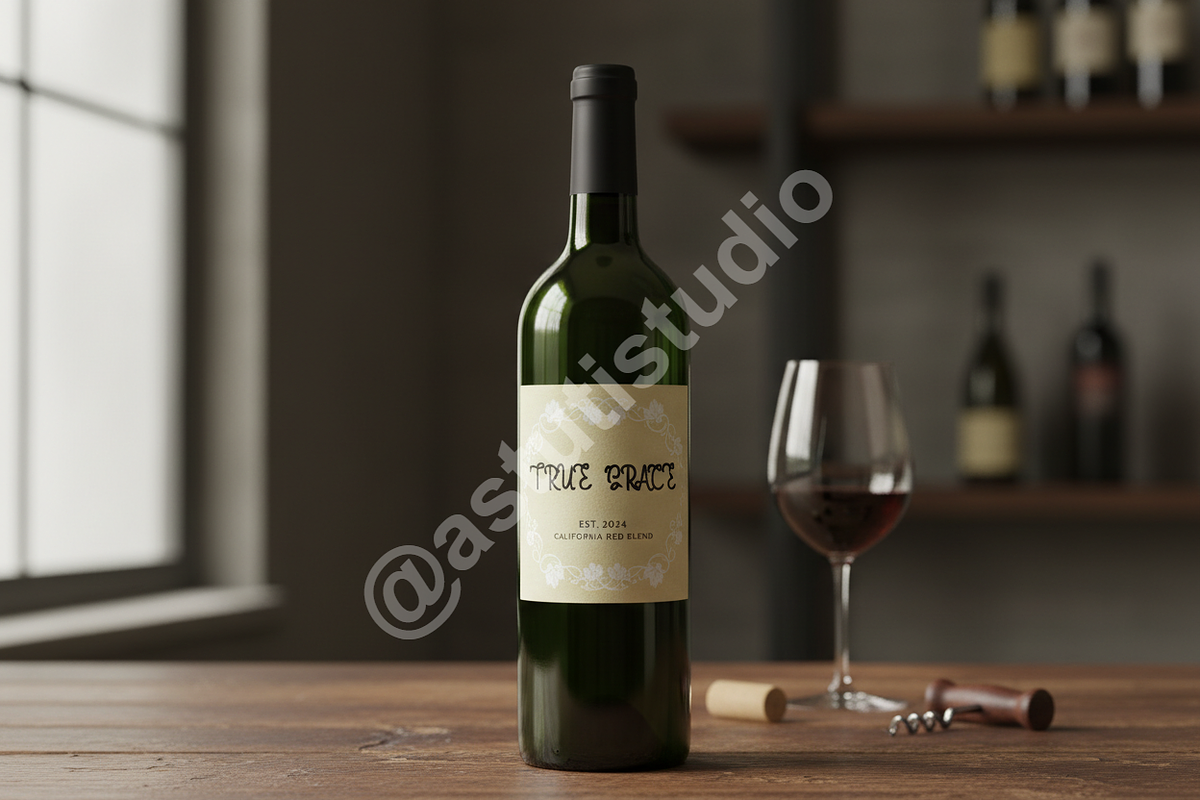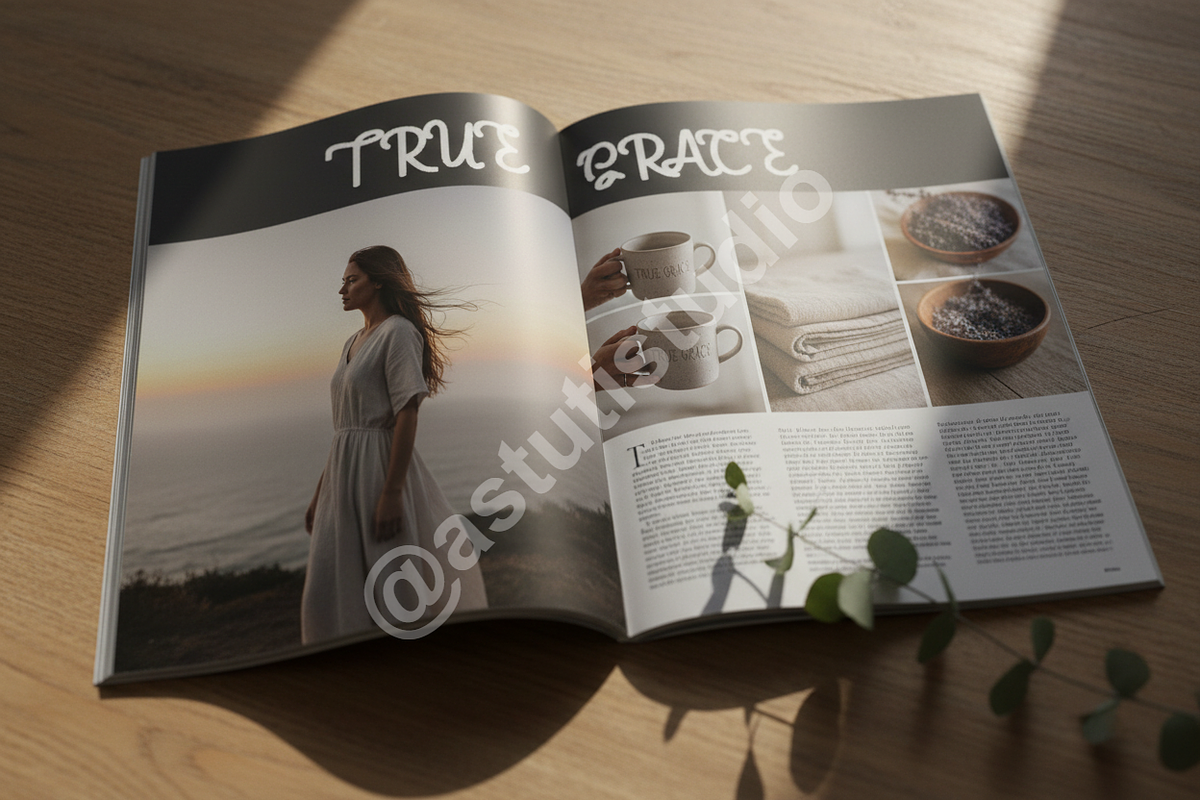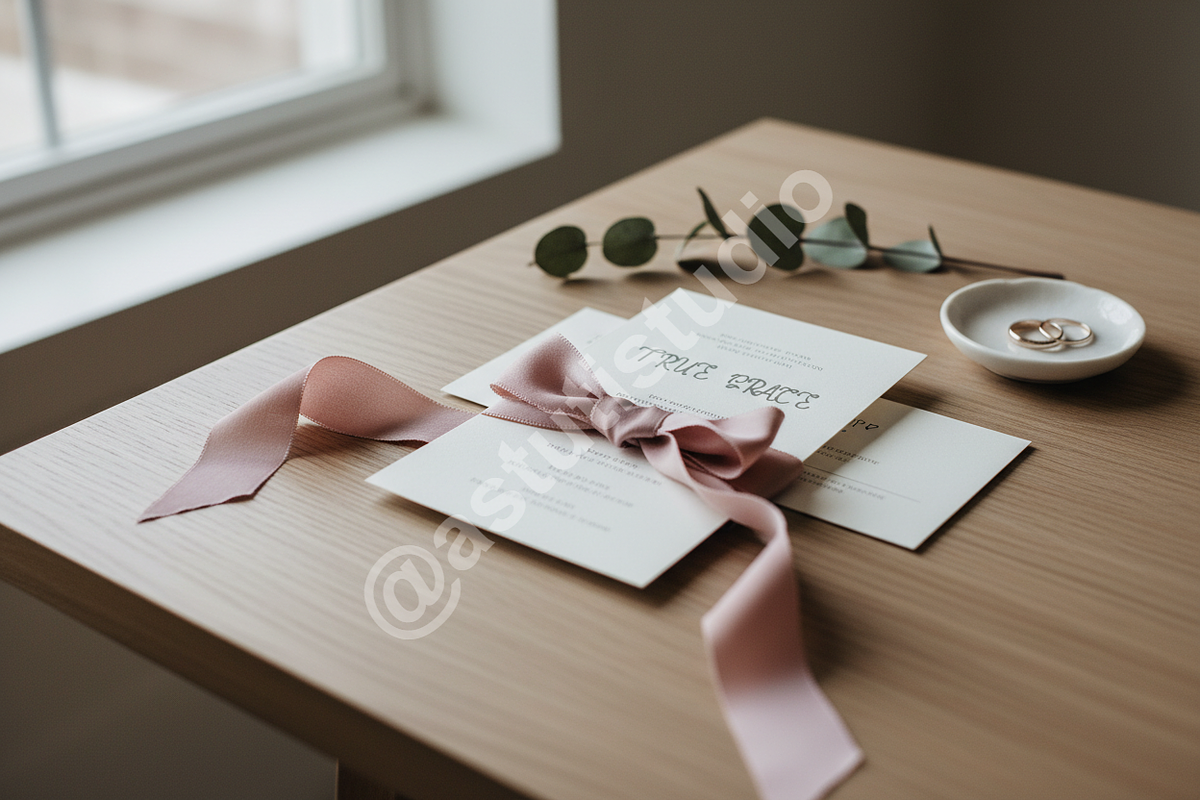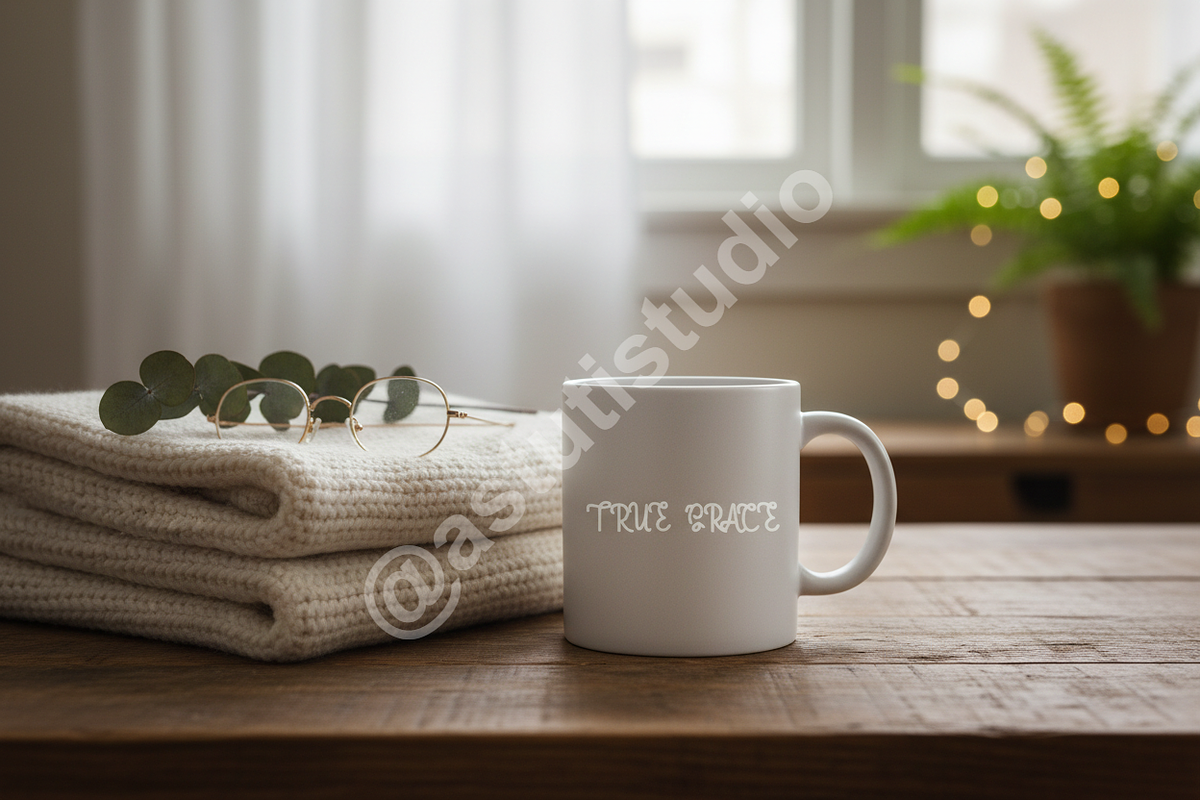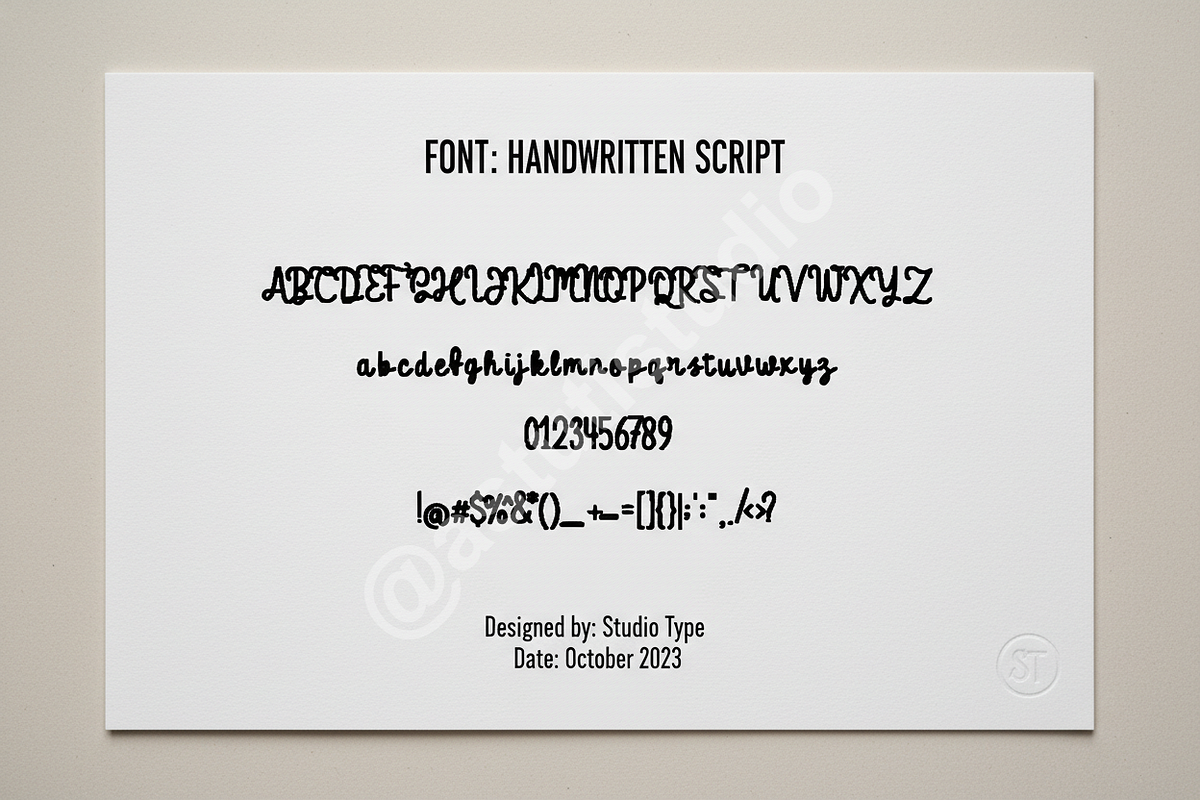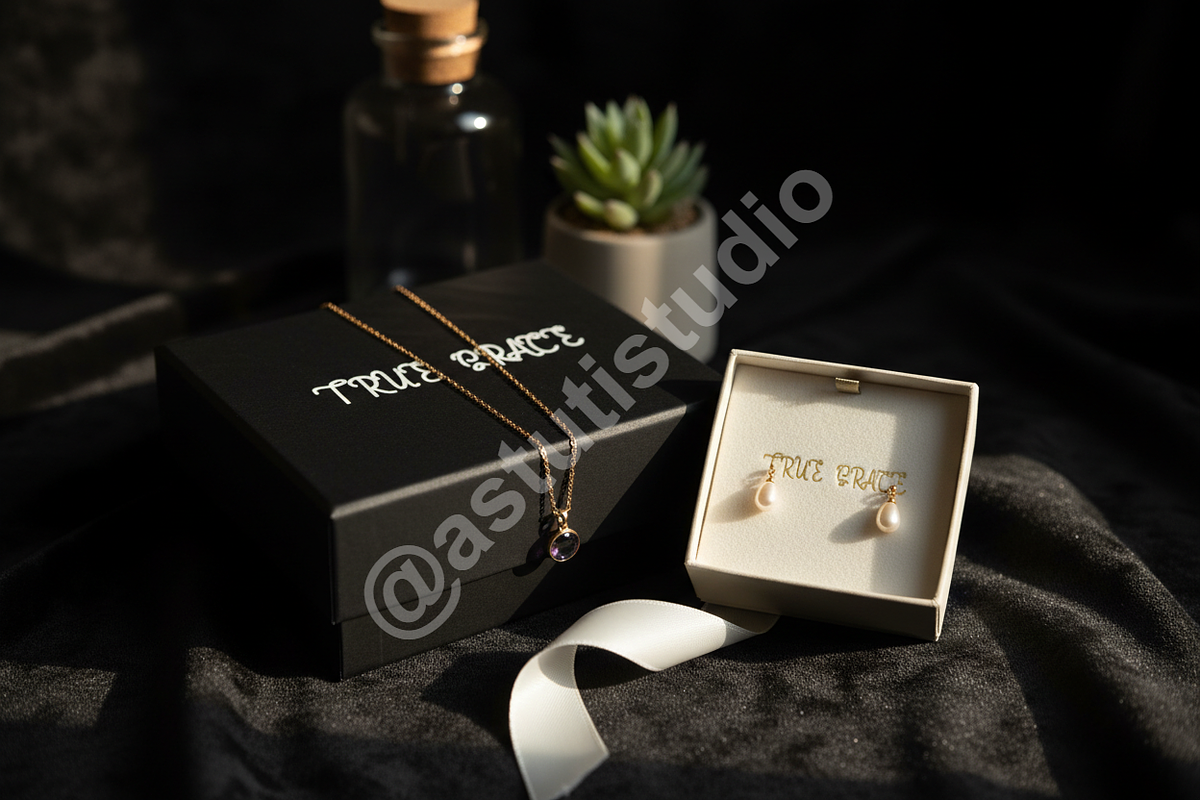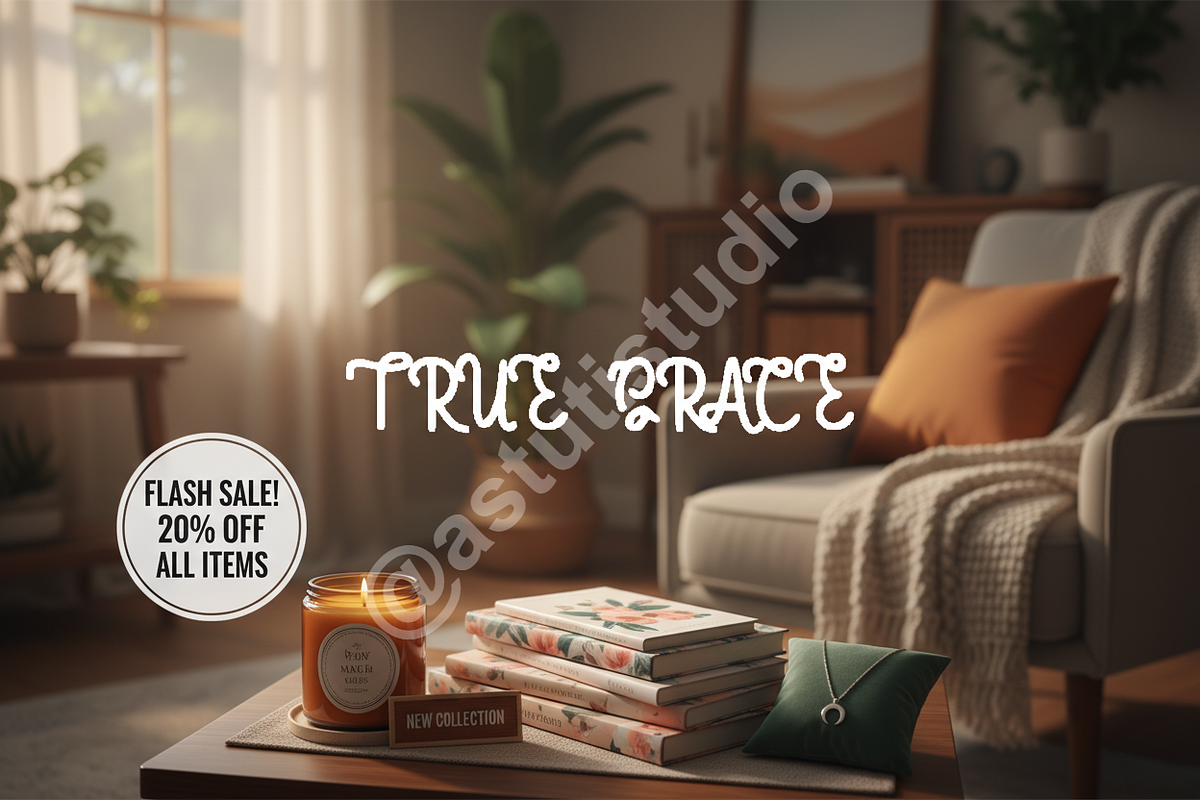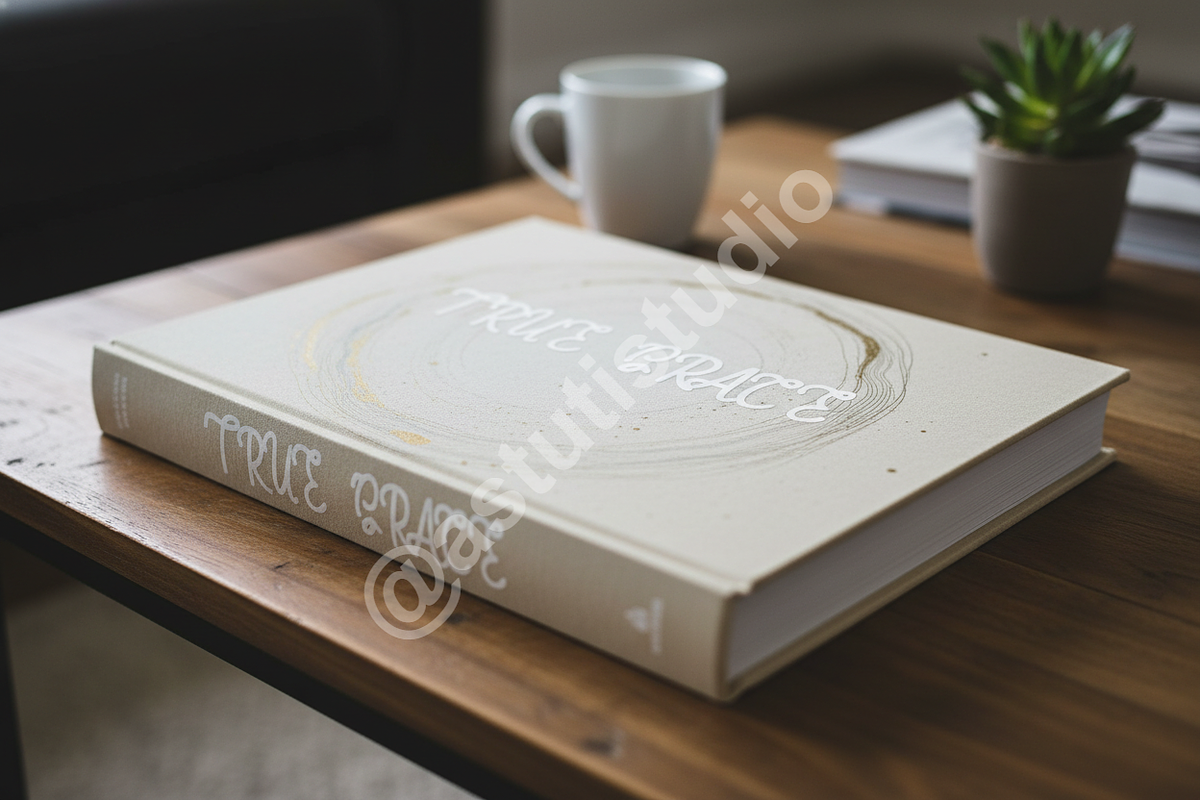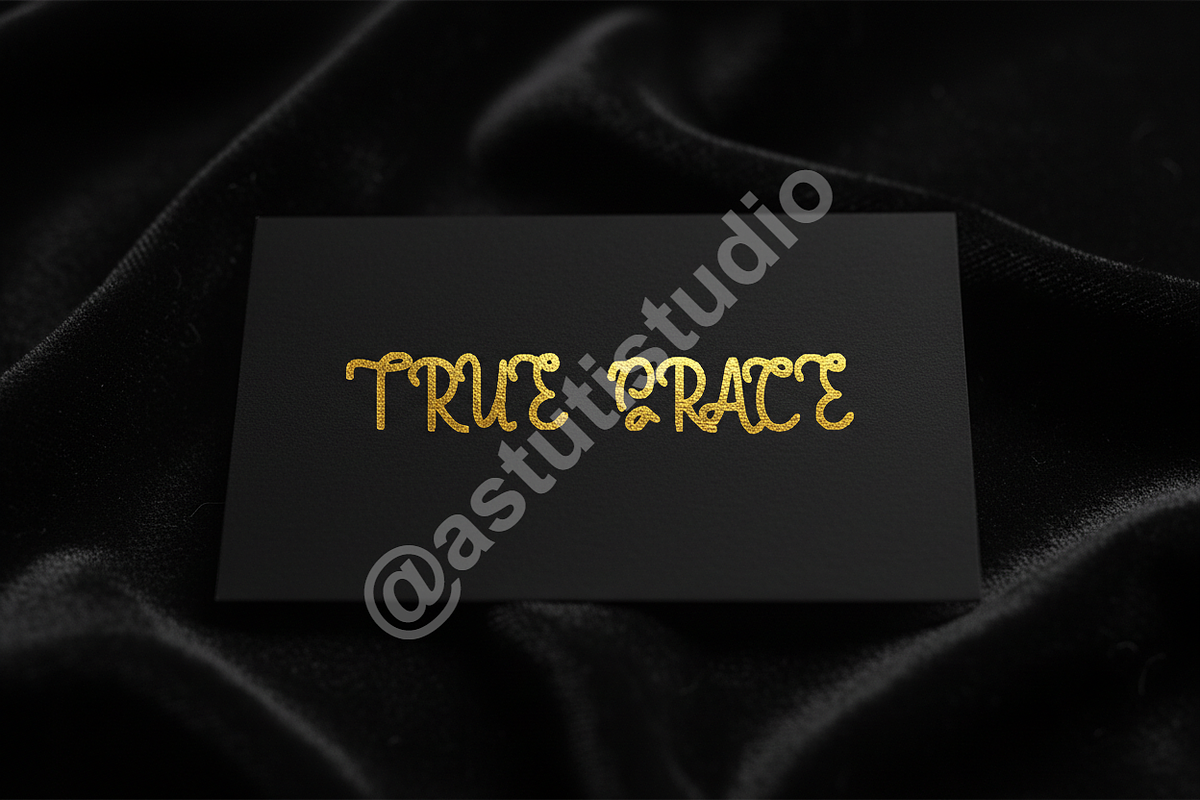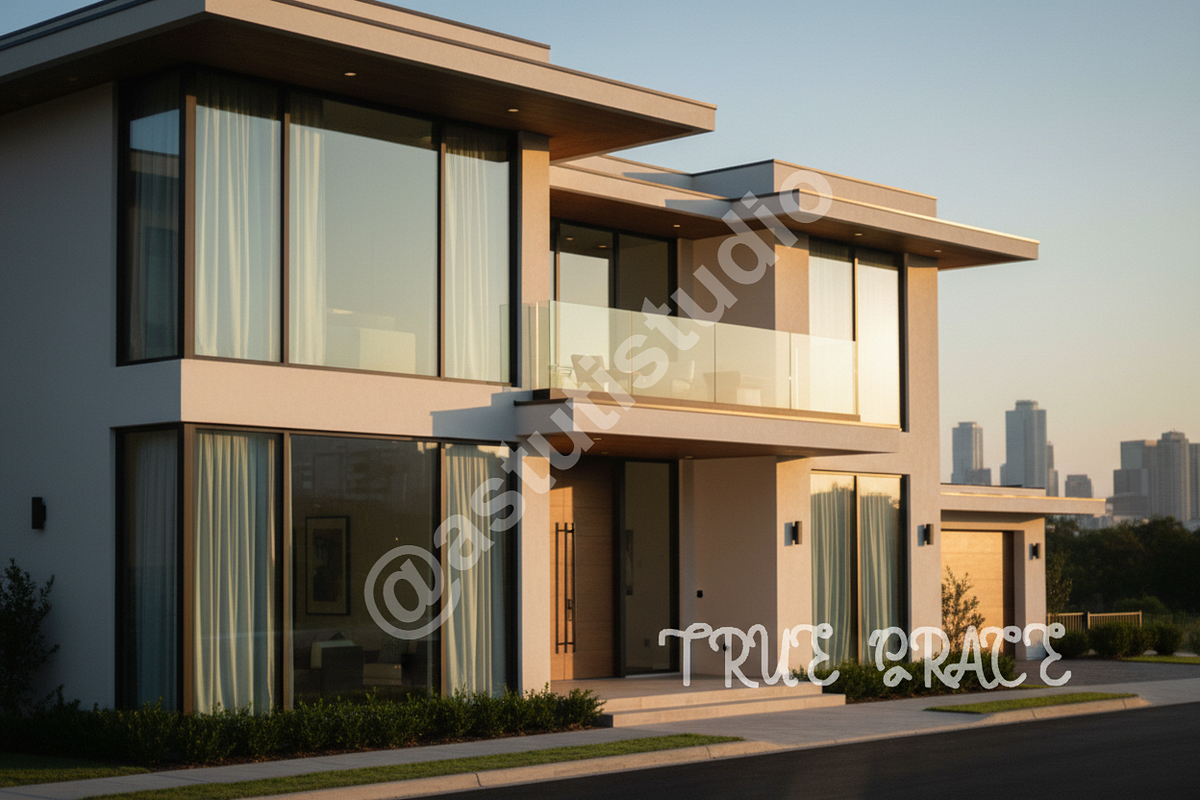
Jafipe | Modern Luxury Editorial Ser
Jafipe is a sophisticated serif font meticulously crafted for high-end aesthetics. It strikes a perfect balance between timeless elegance and modern flair, making it an essential tool for luxury branding, high-fashion editorial layouts, and elevated social media content. Designed for the discerning creative, Jafipe brings an air of exclusivity to every project.
- High-contrast letterforms for a premium feel
- Unique discretionary ligatures for custom character combinations
- Comprehensive multilingual character support
- Clean, sharp edges optimized for both high-resolution print and digital screens
- Perfectly kerned for professional display use